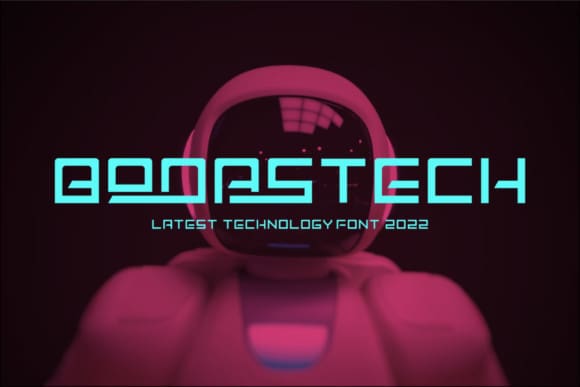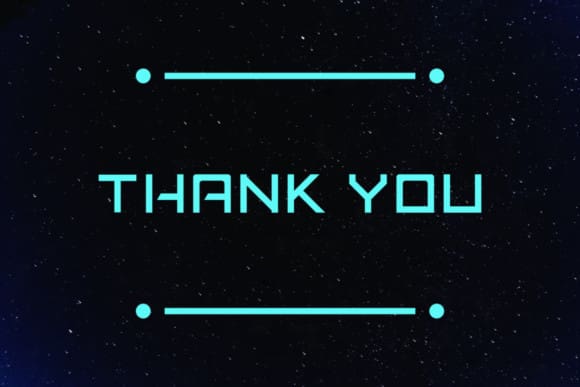
Jasmadi Font
Jasmadi Font is a cool and futuristic display font. The font is suitable for any branding project like logos, t-shirt printing, sport themes, and many more. It will look outstanding in a wide range of contexts.